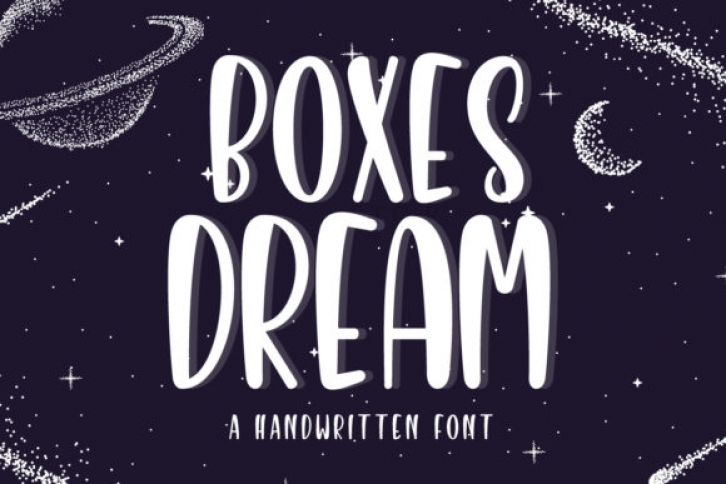
Boxes Dream is an adorable quirky display font. It will add an incredibly joyful touch to your designs.
Masterfully designed to become a true favorite, this font has the potential to bring each of your creative ideas to the highest level!